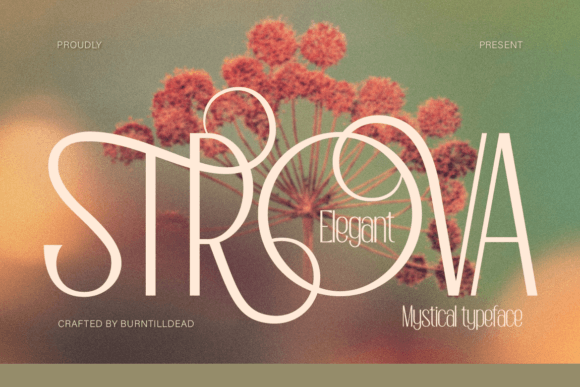
Strova: A Serif Font for Editorial Excellence
The Perfect Serif for Modern Editorial Design
Strova is more than just a serif font—it’s a design companion for anyone who values both elegance and readability. With its refined calligraphic influences and contemporary feel, Strova offers a unique balance that makes it ideal for editorial work. Whether you're crafting a magazine cover, designing a blog header, or laying out an ebook, Strova brings a visual sophistication that enhances the reader experience without overwhelming the content.
Visual Characteristics and Style
Strova’s design draws inspiration from classic calligraphy while maintaining a clean, modern edge. Its serifs are subtly ornate, adding character without sacrificing legibility. The font feels both timeless and fresh, making it versatile for a wide range of editorial applications. The letterforms are well-proportioned, with a consistent rhythm that supports both short headings and longer body text.
Its personality is elegant yet approachable, which makes it suitable for both formal and casual publishing projects. Whether you're creating a lifestyle blog, a recipe guide, or a wedding planning resource, Strova adapts seamlessly to your brand's tone and aesthetic.
Using Strova in Editorial Layouts
Strova shines in editorial layouts where visual hierarchy and readability are key. It works particularly well as a display font for headlines, titles, and pull quotes. Its stylized serifs add visual interest to section headers, helping to break up long blocks of text and guide the reader through the content.
For instance, using Strova on a lifestyle blog's homepage can immediately draw attention to featured articles or special promotions. In a digital magazine, it can be used for chapter openers or cover text, setting the tone for the entire publication. Its versatility also extends to printable materials like worksheets, guides, and planners, where it maintains clarity across different formats.
Enhancing Brand Identity and Reader Engagement
One of the most powerful aspects of Strova is its ability to support brand identity. By choosing a font that aligns with your publication's voice, you create a cohesive visual language that resonates with your audience. Strova’s refined appearance lends itself well to luxury brands, creative studios, and independent content creators looking to elevate their editorial presence.
Additionally, Strova fosters reader engagement by balancing style with readability. Its clean lines and balanced proportions make it easy to read on screen, in print, and even when exported to PDF. This ensures that your content remains accessible across all platforms, enhancing the overall user experience.
Practical Applications Across Content Formats
Strova is a font that can adapt to almost any editorial format. Here are some practical examples:
Font Pairing and Visual Hierarchy
When pairing fonts, it’s important to consider contrast and balance. Strova works exceptionally well with clean sans-serif fonts for body copy, such as Montserrat or Lato, which provide a strong contrast without clashing. For captions and navigation elements, a simple sans-serif like Open Sans or Roboto can complement Strova’s decorative qualities.
For a more dynamic look, you might pair Strova with a script or handwritten font for accents, such as quotes or testimonials. However, it’s essential to use these pairings sparingly to avoid overwhelming the reader. The goal is to enhance the design, not distract from the content.
Readability and Technical Considerations
Strova is designed with readability in mind, making it suitable for screen reading, PDF exports, and mobile layouts. Its clear letterforms ensure that text remains legible even at smaller sizes, which is crucial for digital publications and online content.
When working with PDFs, it’s advisable to check that Strova includes web-safe styles, ligatures, and alternate characters for multilingual support. These features ensure that your content looks professional across different platforms and audiences.
Conclusion
Strova is more than just a font—it’s a tool that enhances editorial design, strengthens brand identity, and improves reader engagement. Its elegant yet modern appearance makes it a versatile choice for a wide range of publishing projects, from blogs and magazines to printables and digital guides. Whether you’re looking to elevate your content or create a more polished visual experience, Strova is the perfect addition to your design toolkit.